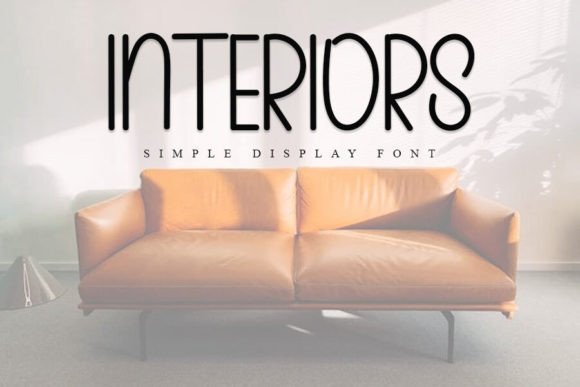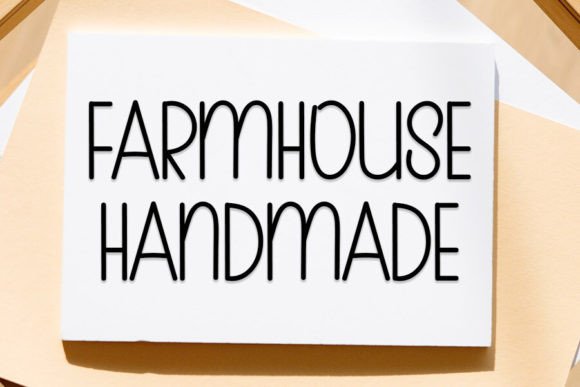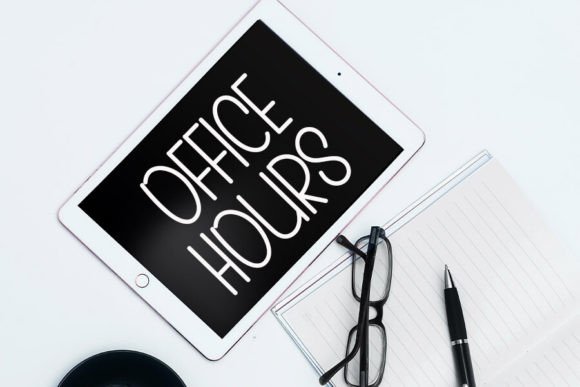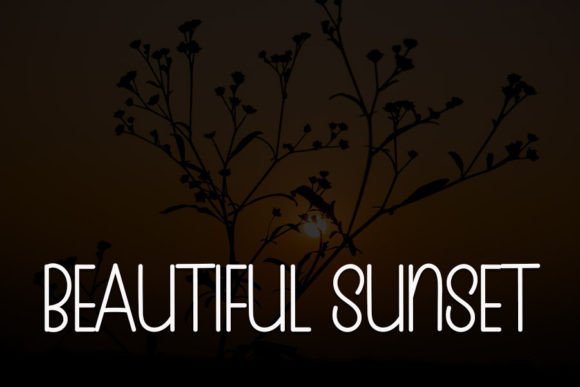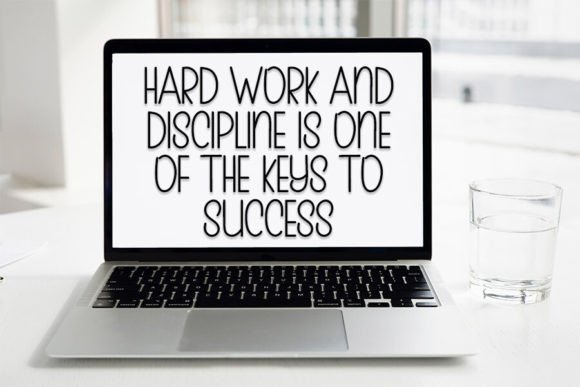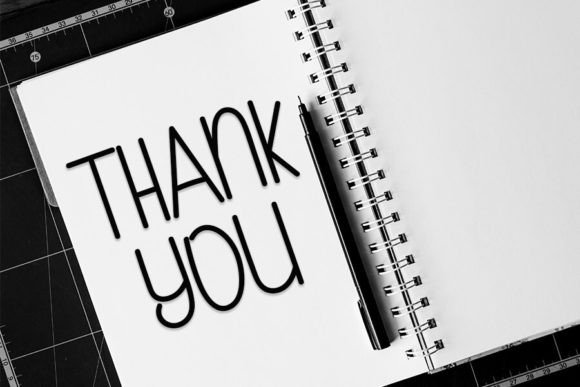
Discover the Perfect Blend of Style and Elegance with Brunch Font
There’s something special about sipping a Sunday morning coffee, surrounded by the quiet morning light, and feeling the urge to create something beautiful. Maybe it’s the peaceful atmosphere or the promise of a new day, but whatever it is, it’s the perfect moment to break out your favorite design tools and get creative.
For those who crave a touch of elegance in their designs, Brunch Font is the perfect addition to your toolkit. This stunning handwritten font is designed to add a unique and timeless flair to any project, making it perfect for branding, invitations, and any other creative endeavor. Whether you’re a seasoned designer or just starting out, Brunch Font is a valuable asset that will help you take your designs to the next level.
Key Features of Brunch Font
- Font Family: Brunch Font is a modern sans-serif font family that comes in 12 styles, including Thin, Light, Regular, Medium, Bold, Heavy, and more.
- Unique Characteristics: Brunch Font features a unique blend of modern and vintage elements, with a focus on clean lines, geometric shapes, and a subtle flair for elegance.
Designer Review: Brunch Font
Overall, I think Brunch Font has some nice qualities, but it also has its limitations. Here’s what I think works well:
- ✨ Unique and playful feel: Brunch Font has a distinct personality that sets it apart from other fonts. It’s perfect for adding a touch of whimsy to designs.
- ✨ Versatility: This font can be used in a variety of contexts, from food and lifestyle brands to children’s books and advertising.
- ✨ Friendly and approachable: Brunch Font has a warm and inviting feel that makes it perfect for designs that need to convey a sense of community or friendship.
- ⚠️ Limited readability: While Brunch Font is perfect for casual designs, it can be challenging to read in smaller sizes or at a distance.
- ⚠️ Limited versatility in formal contexts: While Brunch Font can be used in a variety of contexts, it may not be the best choice for more formal or professional designs.
- ⚠️ Limited compatibility: I’ve found that Brunch Font doesn’t work as well on certain platforms or devices, which can be a problem if you’re designing for a wide audience.
Overall, I think Brunch Font is a great choice for designers who want to add a playful touch to their designs. However, it may not be the best choice for every project, and designers should be aware of its limitations before using it.
Tips for Getting the Most Out of Brunch Font
Use Brunch Font for headings, titles, and menus to create visual interest. Experiment with different font sizes, colors, and styles to add depth and texture to your designs. Combine Brunch Font with other fonts to create a unique and stylish typography.
Brunch Font is ideal for:
- Cafes and restaurants for menus and signage
- Food blogs and recipe websites for titles and headings
- Event invitations and wedding stationery
- Branding and marketing materials for food and beverage companies